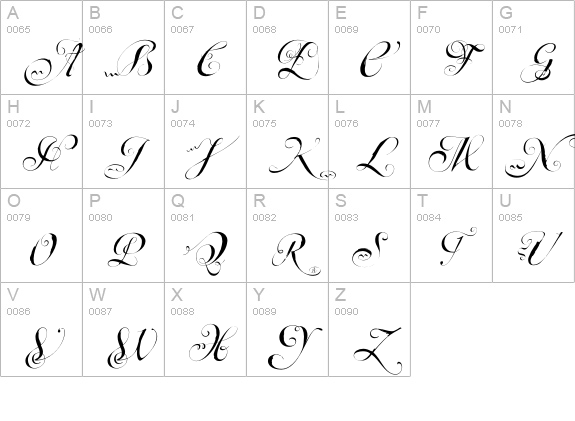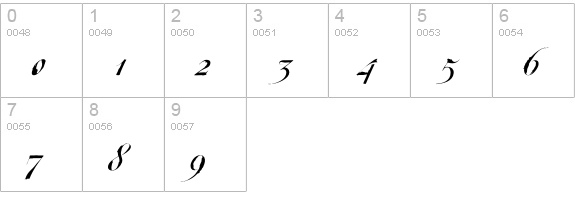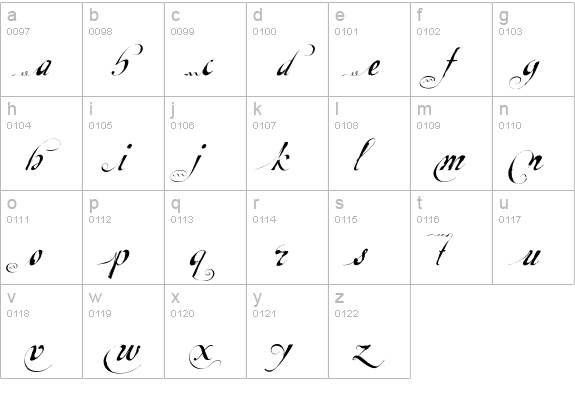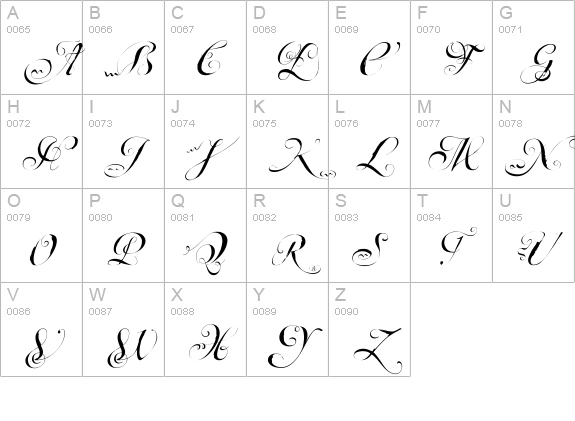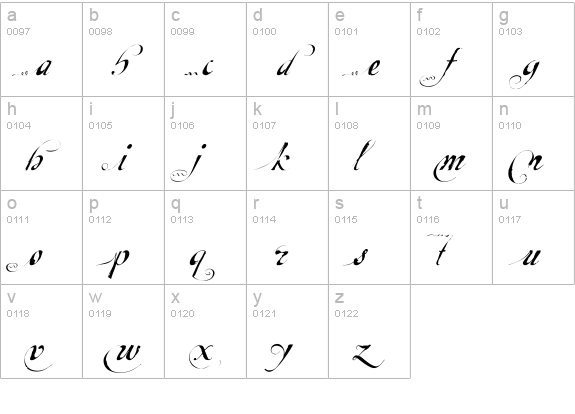
Escrita-Inicial Font Details
Escrita-Inicial font is a beautifully crafted typeface that exudes elegance and sophistication. With its intricate details and timeless appeal, this font is perfect for adding a touch of class to any project. The flowing curves and sharp lines of Escrita-Inicial give it a unique and distinctive look that is sure to captivate any audience. What makes Escrita-Inicial even more special is that it is available for free download at FontsMarket.com. This means that you can easily access this stunning font and use it in your designs without any cost. Whether you're creating invitations, posters, logos, or any other creative project, Escrita-Inicial is a versatile font that will elevate your work to the next level. Don't miss out on the opportunity to enhance your designs with the beauty of Escrita-Inicial font. Download it for free today at FontsMarket.com and let your creativity shine!